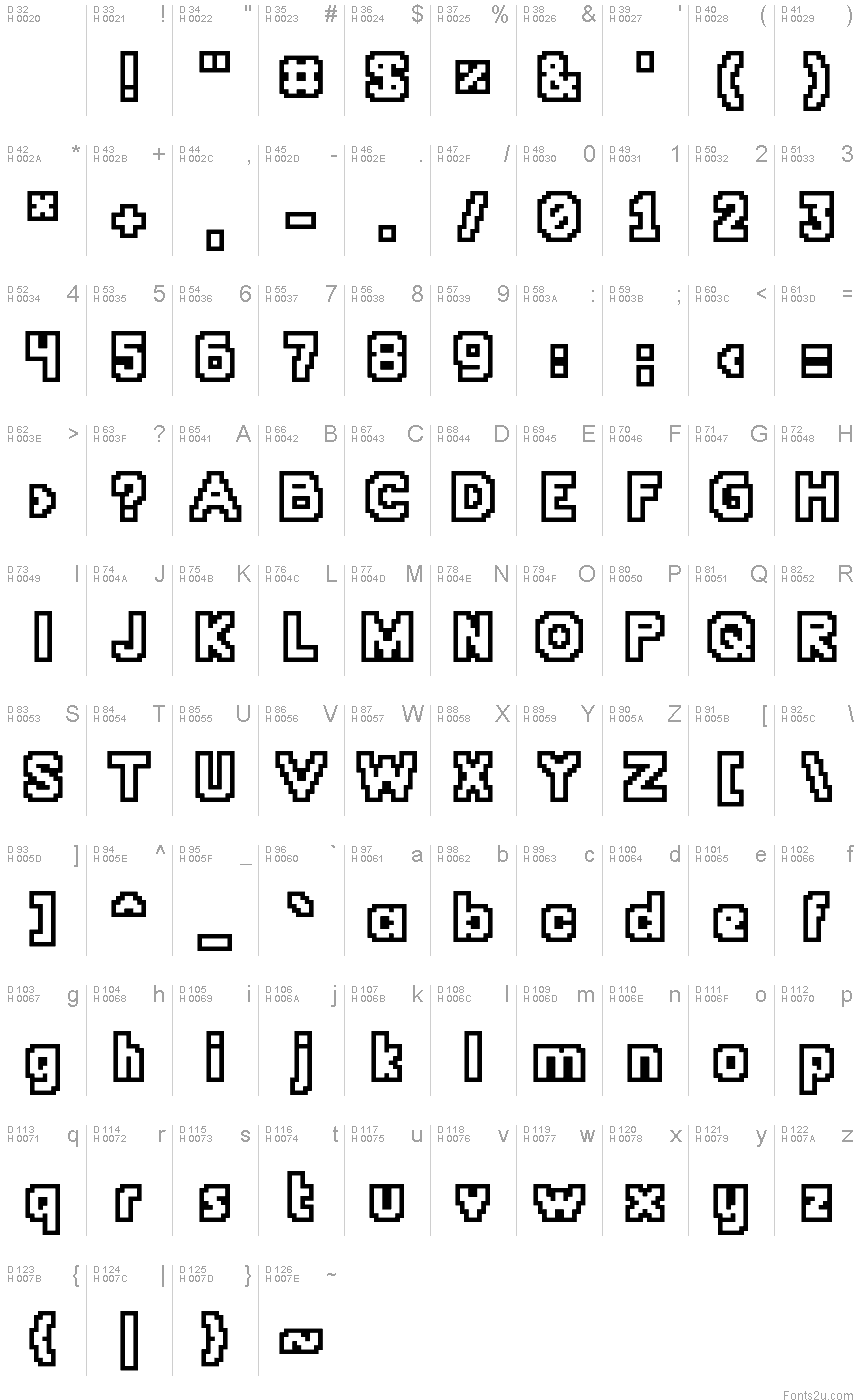
ChunkyDunkOutlin
A font specifically made for use in Adventure Game Studios. Best viewed at 14 pixel size. Alias and outline fonts are to be layered over the base font.